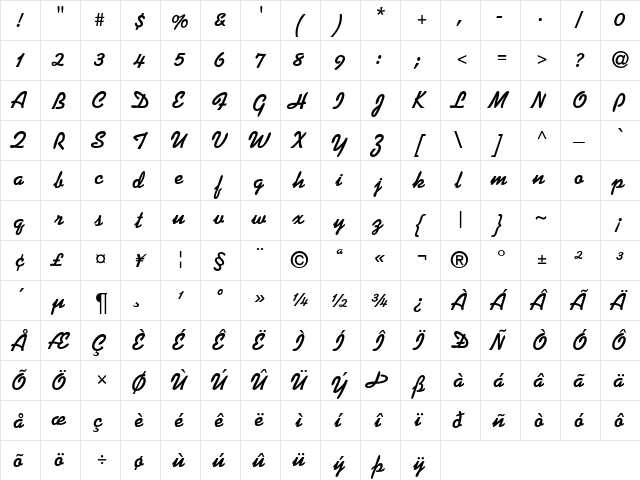
KalingDB Bold Font Preview
KalingDB Bold
KalingDB Bold Font Details
Design Context for KalingDB Typeface
KalingDB is a composed and adaptable typeface that performs quietly and consistently across a wide range of design contexts. The heavy weight commands attention and anchors typographic hierarchies.